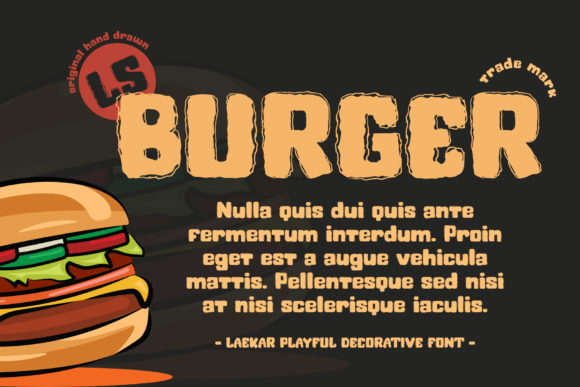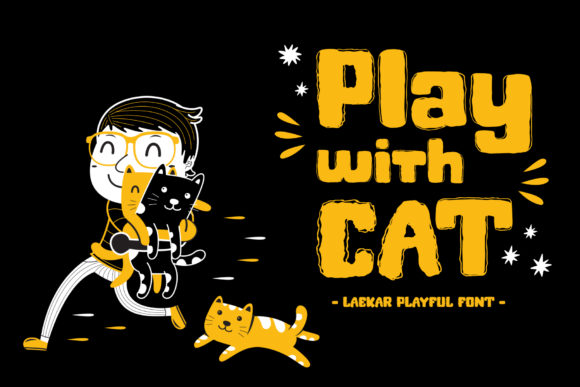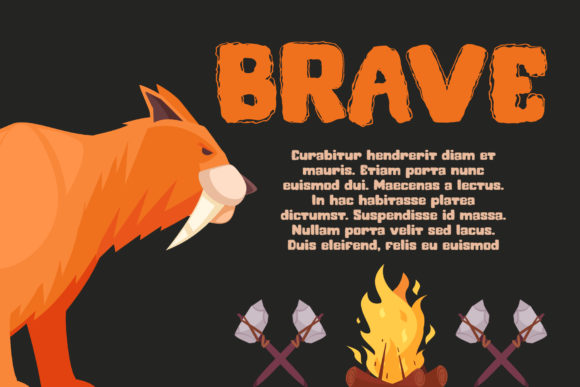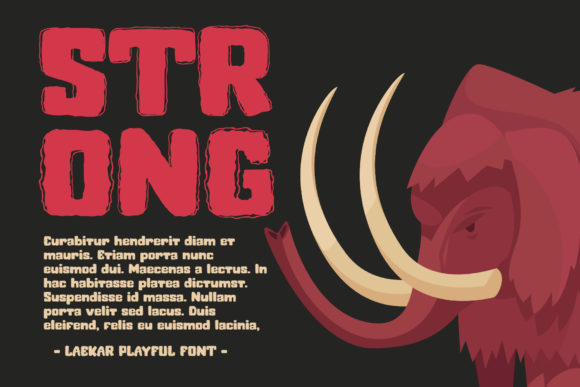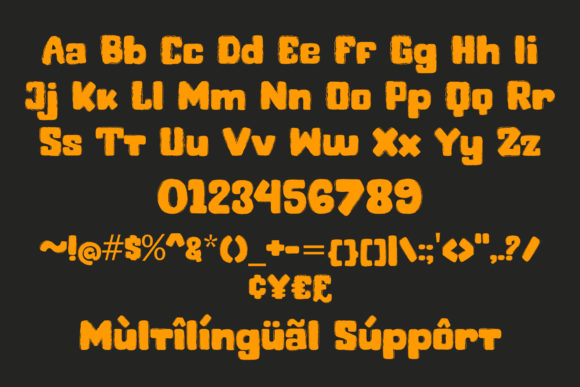
Introduction to Laekar Font
Imagine you’re working on a creative project, pouring your heart and soul into every detail, and then… you hit a roadblock. Your design just needs that perfect finishing touch, but you can’t quite find the right font. This is where the Laekar Font comes in – a game-changing design resource that can elevate your work from good to great.
With its quirky charm and unique character, the Laekar Font is perfect for designers who want to add a little personality to their projects. Whether you’re working on a graphic design, logo design, or even a digital art piece, this high-quality font is sure to impress. And the best part? You can download it for free, complete with a transparent background, making it easy to integrate into any design.
As a valuable addition to any designer’s toolkit, the Laekar Font offers endless possibilities for creative expression. Whether you’re a seasoned pro or just starting out, this versatile font is sure to inspire your next big project.
Key Features of Laekar Font
- Unique, handcrafted font with a transparent background, perfect for adding a personal touch to your designs.
- Perfect for designers, artists, and creatives looking for a distinctive and high-quality font to elevate their work.
Honest Review: Laekar Font
I recently had the chance to work with the Laekar Font and I must say, it’s a great addition to any design resource library. The free download option makes it accessible to creatives on a budget, which I appreciate.
One of the things that stands out about Laekar Font is its versatility. It’s suitable for a wide range of creative projects, from web design to print materials. I particularly liked the ✨ high quality and detailed design of the font, which makes it perfect for adding a touch of elegance to any project.
The font also comes with a transparent background, which is a huge plus for designers who like to have complete control over their designs. However, I did find the font to be a bit limited in terms of its character set, which is a ⚠️ drawback for those who need a font with a wide range of characters.
- ✨ High quality and detailed design
- ✨ Suitable for a wide range of creative projects
Overall, I would say that Laekar Font is a solid choice for designers looking for a high-quality, versatile font. While it may have some limitations, it’s definitely worth considering for your next creative project.
Laekar Font Overview
Laekar Font is a high-quality design resource that offers a transparent background, making it perfect for creative projects. You can download it for free, giving you the flexibility to use it in various applications.
Getting the Most Out of Laekar Font
To get the most out of Laekar Font, experiment with different font sizes, styles, and effects to create unique and visually appealing designs. You can also combine Laekar Font with other design resources to create a cohesive look.
Common Use Cases for Laekar Font
Laekar Font is ideal for various creative projects, including logos, business cards, brochures, and social media graphics. Its high-quality design and transparent background make it perfect for use in digital and print media.